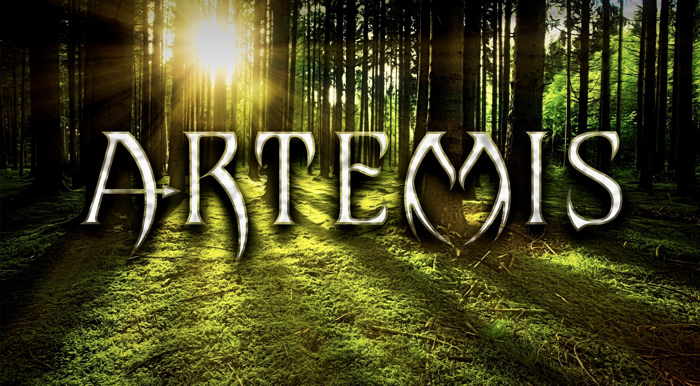
Artemis Font
Another font inspired by Greek Mythology and the twelve Gods of Olympus. This one is particularly inspired by Artemis, Godess of the hunt, and it is heavily based on “Wicked Queen” font (https://fontspace.com/joannavu/wickedqueen ). Key elements of the Godess such as horns and arrows were incorporated.
Includes Greek characters.